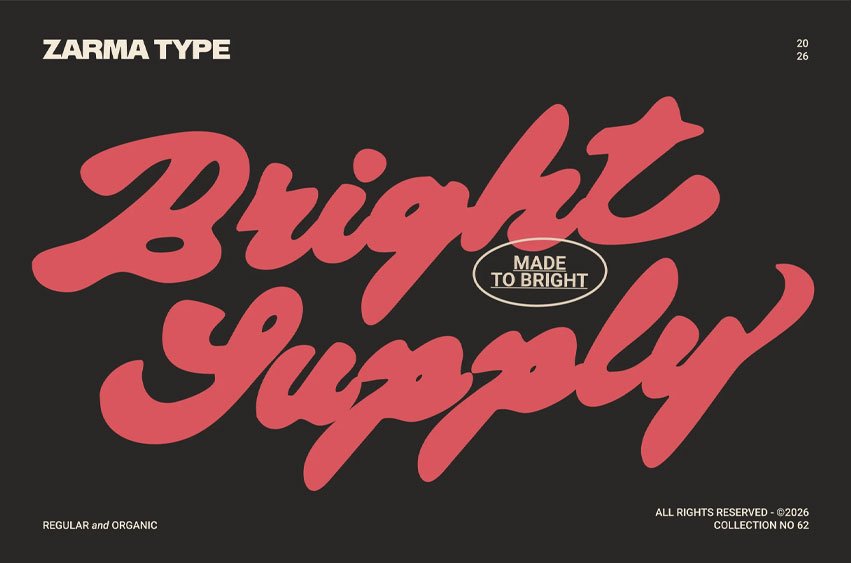
Bright Supply Font is a bold organic script logo font made to bring warmth, confidence, and handcrafted charm into your design. Its thick flowing strokes, smooth curves, and friendly rhythm make every word feel expressive and easy to notice. The regular style gives you a clean and polished script look, while the organic style adds a more natural texture for handmade branding, labels, and packaging.
This font is perfect for designers who need a bold script typeface that feels stylish, warm, and ready for real brand projects. Use it for café logos, bakery labels, beverage packaging, market signs, merchandise, posters, and social media graphics. With ligatures, stylistic alternates, swashes, multilingual support, and PUA encoded characters, Bright Supply gives you the flexibility to create custom-looking lettering with a smooth handmade feel.
- Logo design and brand identity
- Café, bakery, and restaurant branding
- Beverage packaging and product labels
- Market signs and vintage-inspired signage
- Posters, flyers, and merchandise
- Social media graphics and promotional designs
- Handmade, organic, rustic, and artisanal branding
- 2 styles: Regular & Organic
- Uppercase and lowercase letters
- Numbers and punctuation
- Ligatures, stylistic alternates, and swashes
Bring a warm handmade voice to your next project with Bright Supply. Use it to create bold script logos, packaging, labels, and headlines that feel friendly, crafted, and full of personality.